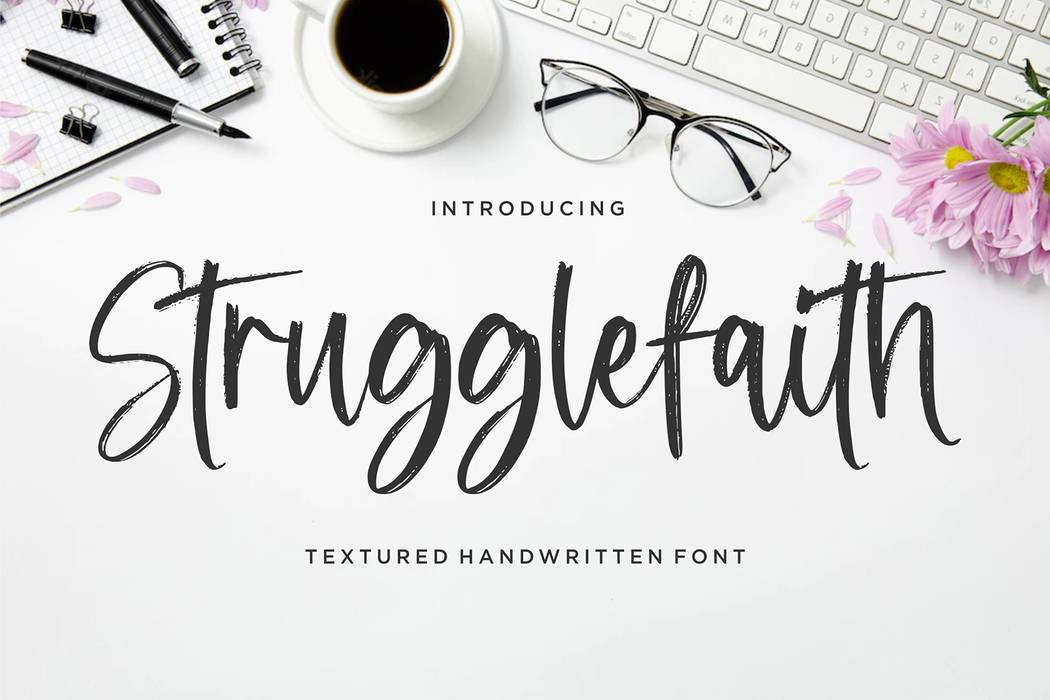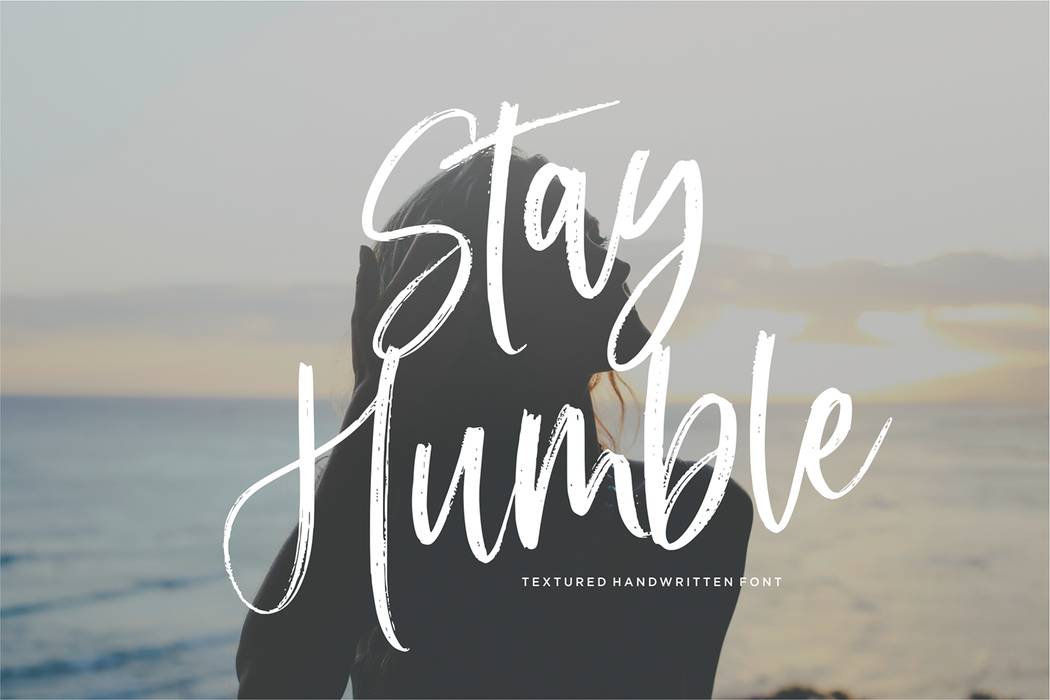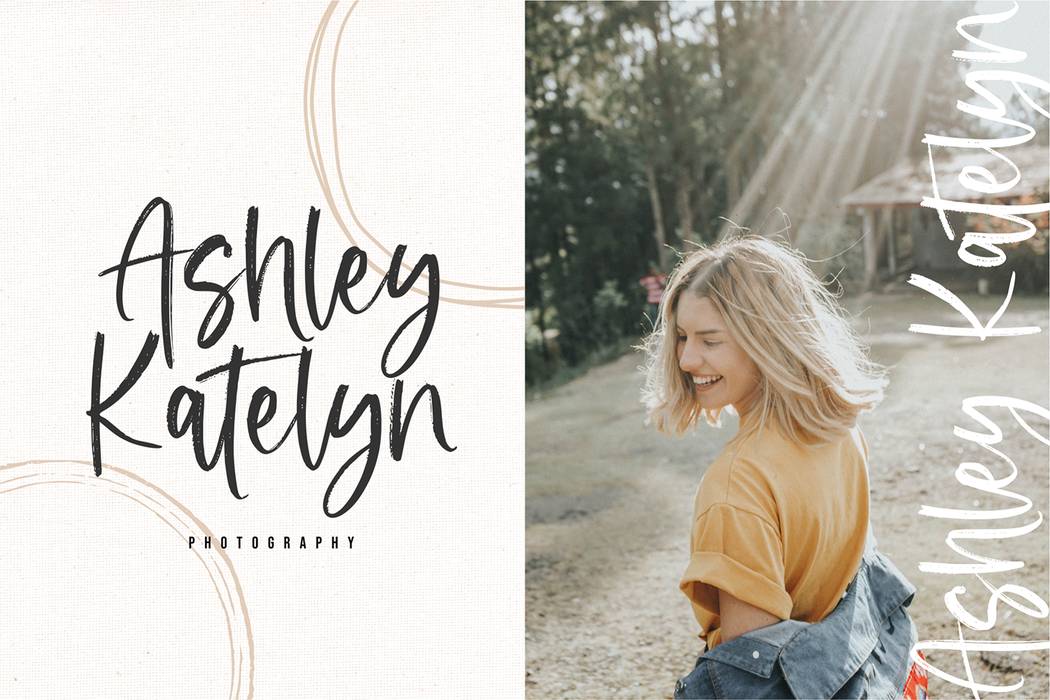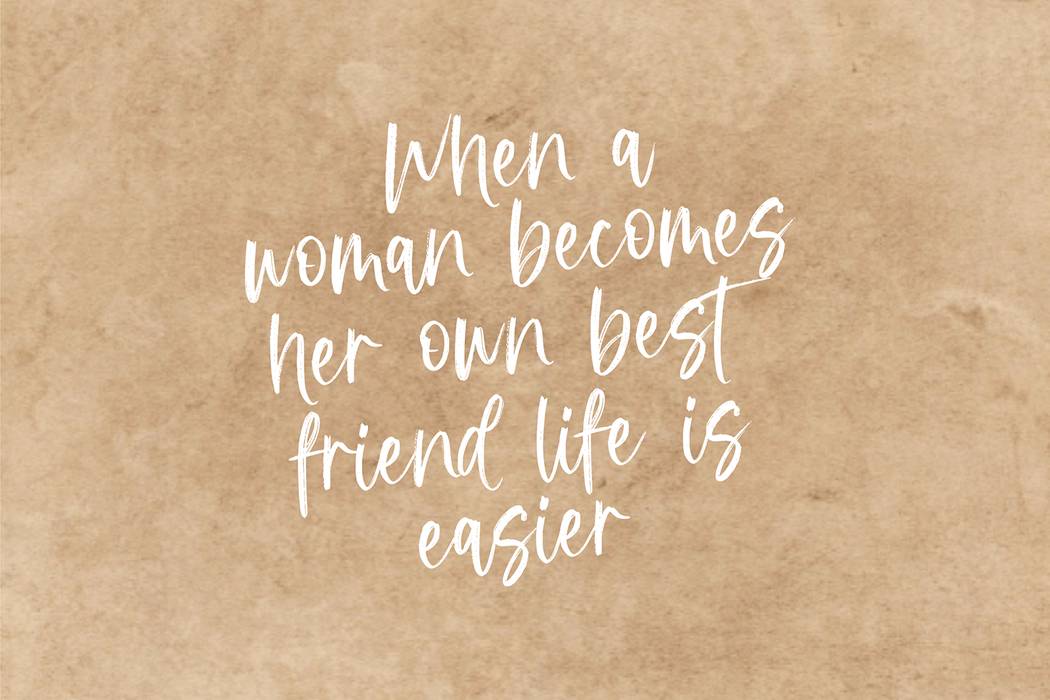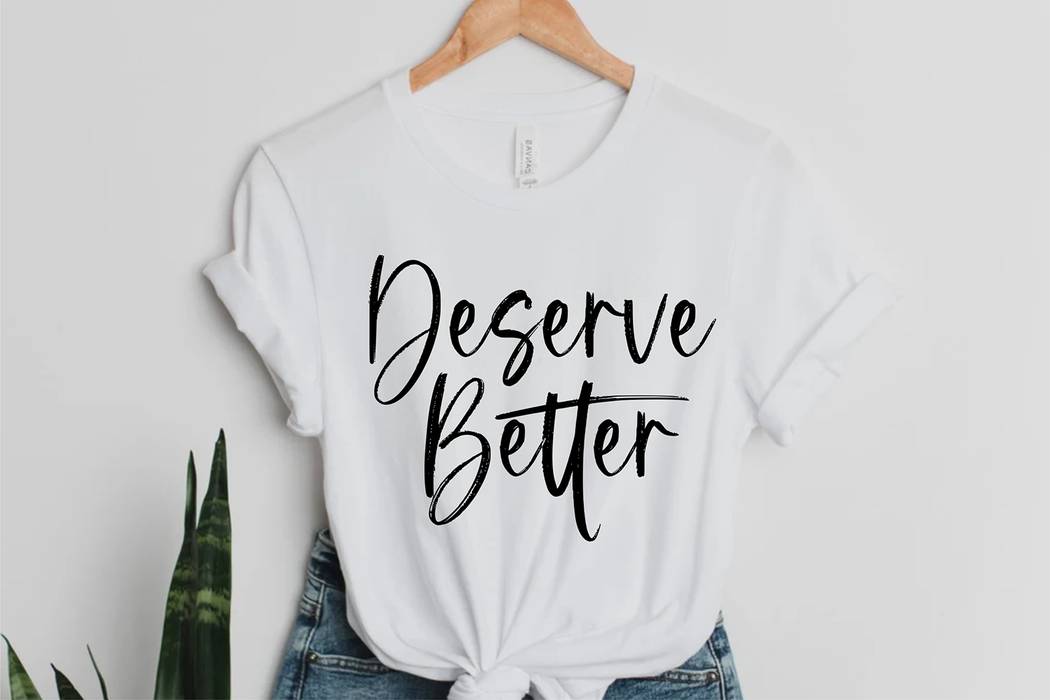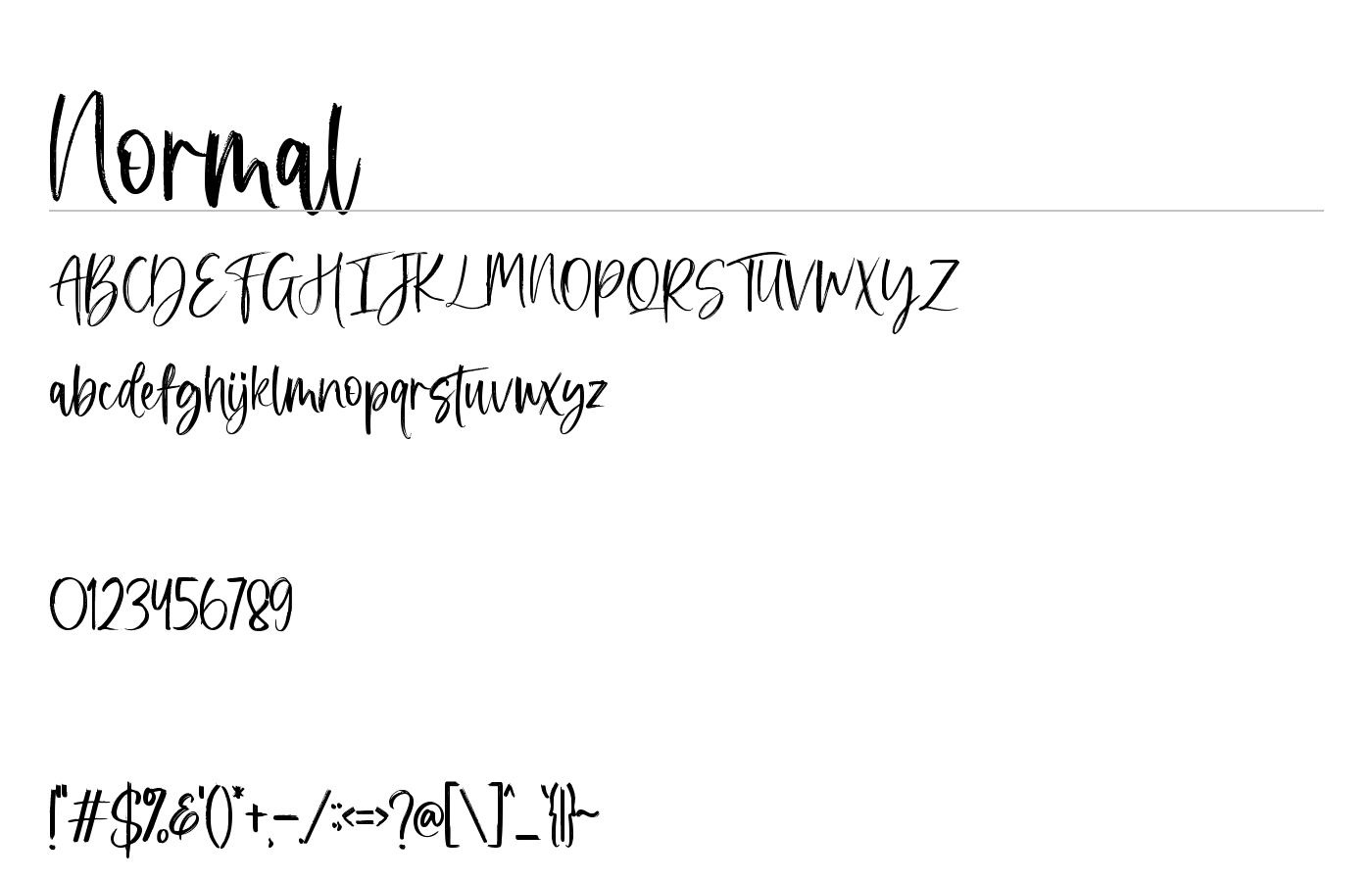
Strugglefaith is a lively and expressive handwritten script font characterized by its slender and slightly irregular strokes that evoke a sense of spontaneity and personal touch. Its playful yet elegant letterforms make it ideal for creative projects, branding, invitations, and social media where a warm, approachable, and artistic feel is desired. This font’s casual style pairs well with modern and artistic themes, adding a unique personality to headlines and decorative text.
Strugglefaith Font
About Strugglefaith Font
| Font family | Strugglefaith Font |